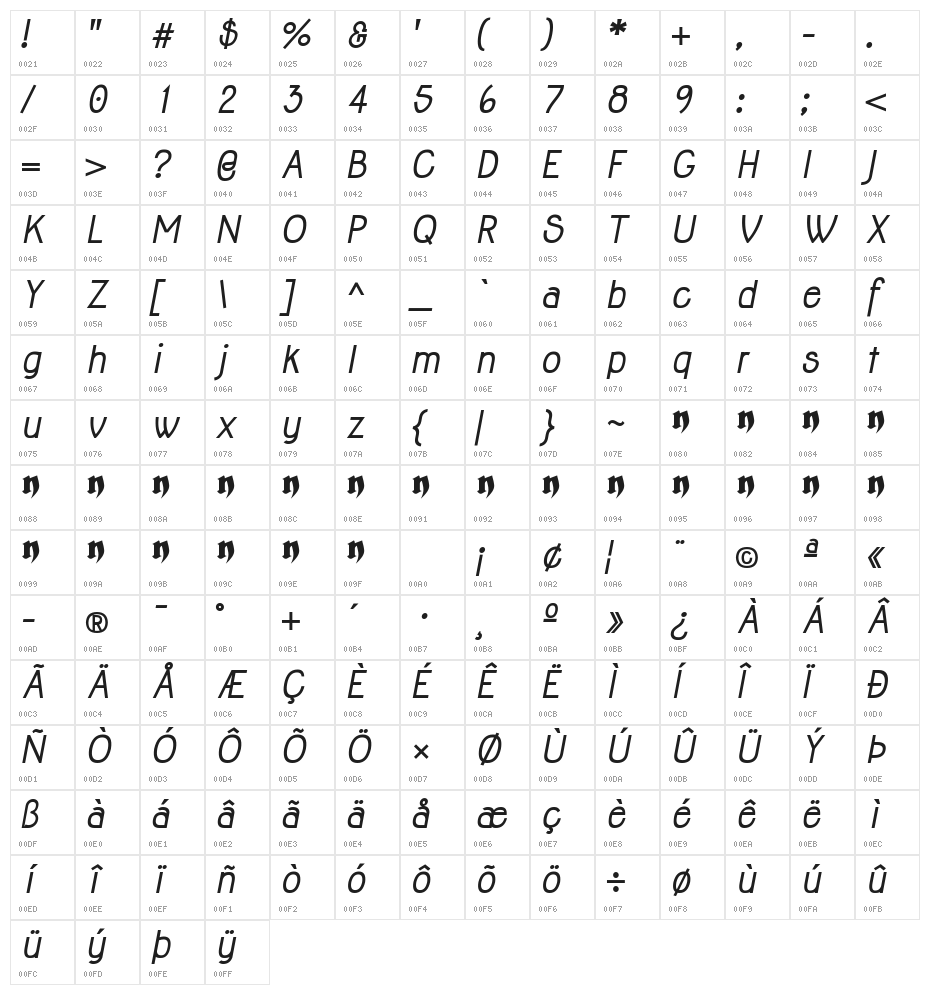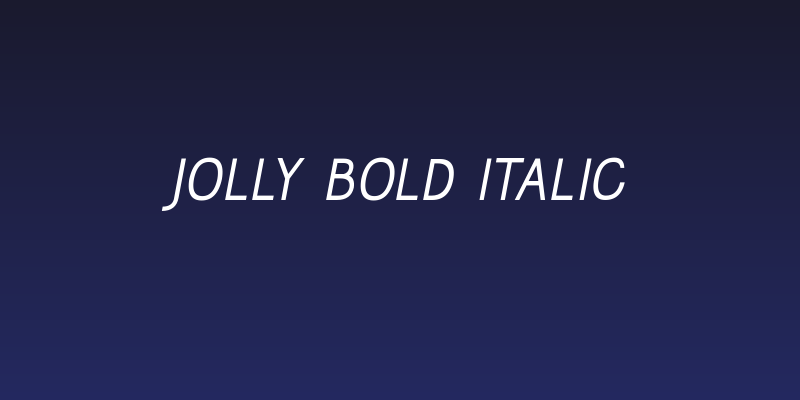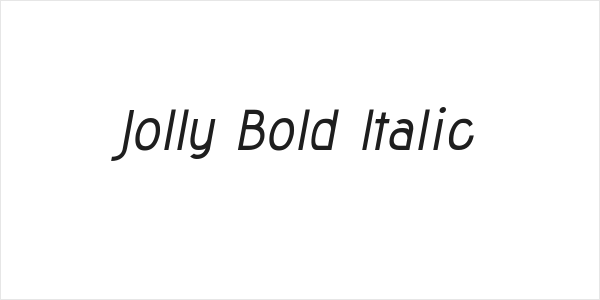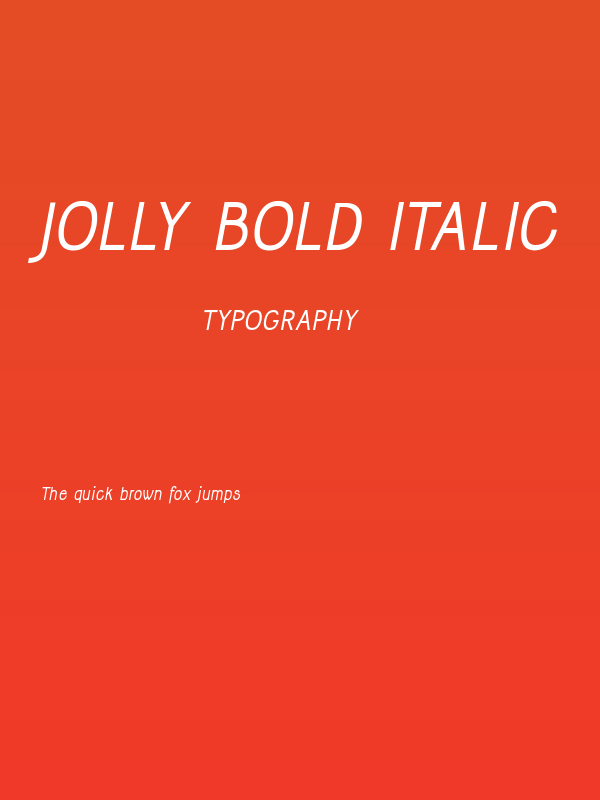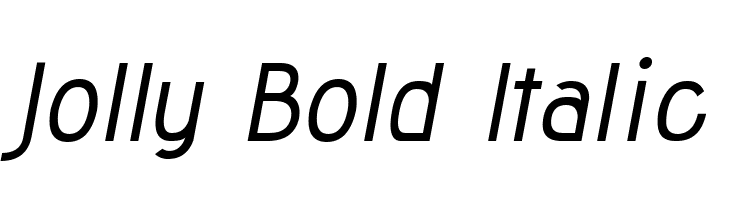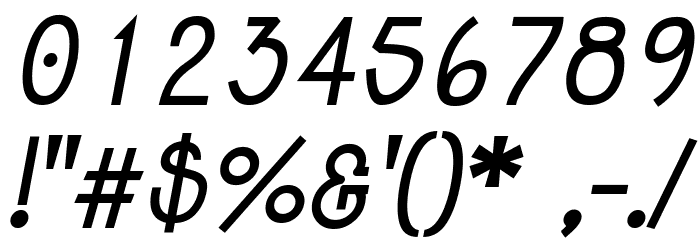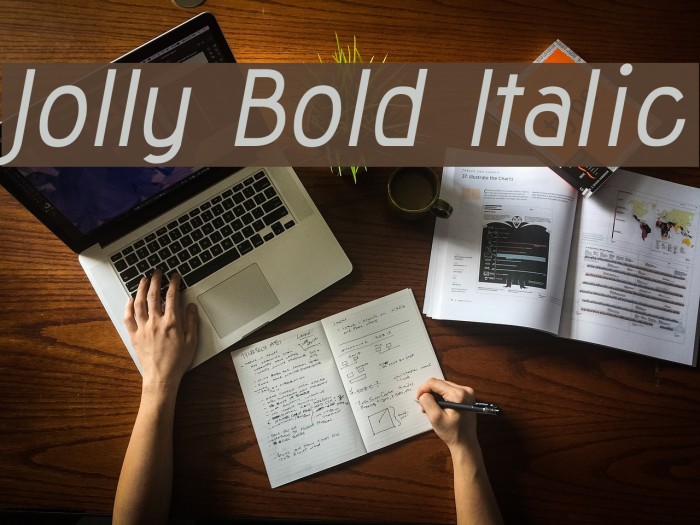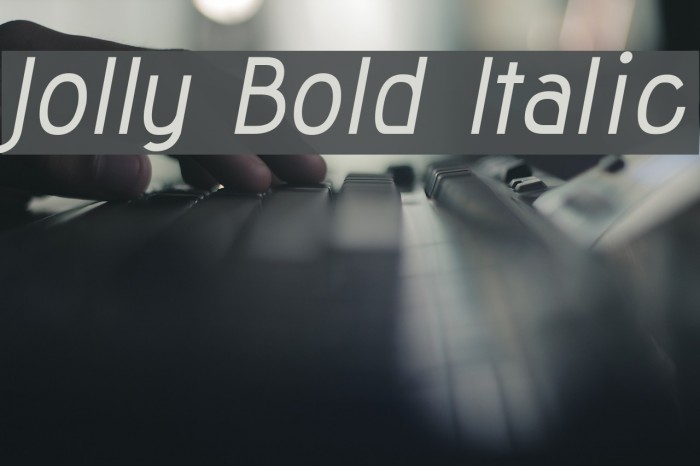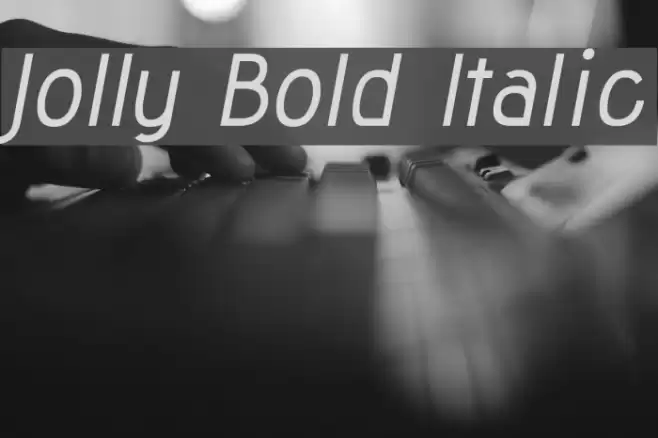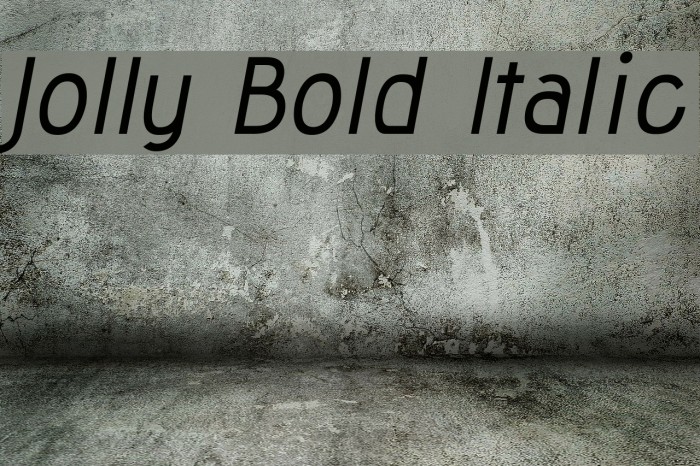
Jolly Bold Italic Font
✎ Sans Serif
Jolly Bold Italic Description
This font features a bold and italicized style, combining a sense of strength with a dynamic slant. The characters are sans-serif, providing a clean and modern appearance. The strokes are consistent in weight, offering a uniform look across all characters. The italic angle adds a sense of motion and fluidity, making it suitable for conveying emphasis or urgency. The numerals are clear and easy to read, while the special characters maintain the same bold and italicized attributes, ensuring consistency throughout the typeface.
| Use Case | Headlines, Logos, Advertising |
| Proposed Projects | Ideal for branding, advertising, headlines, and any project requiring a bold and modern touch. |